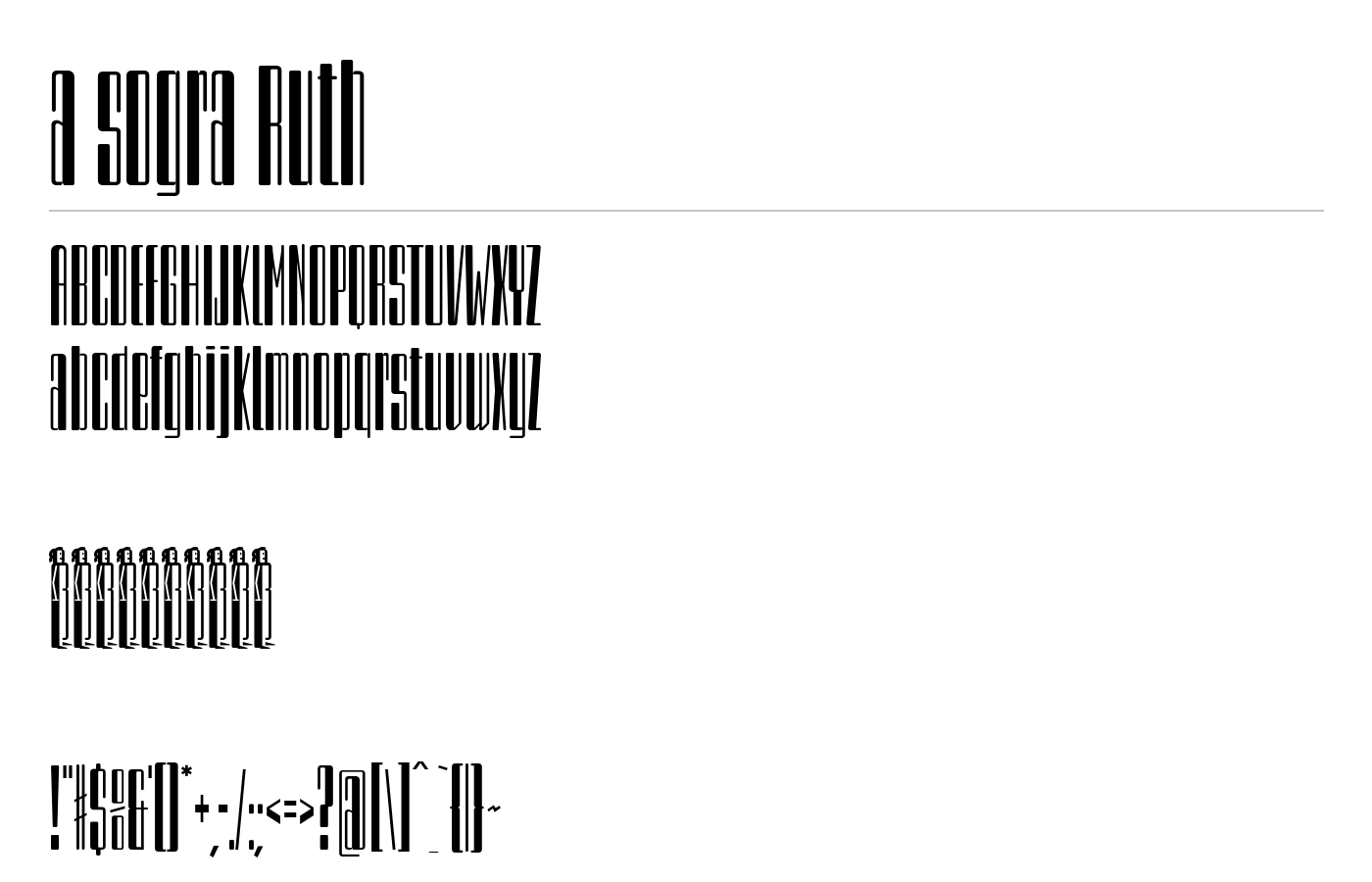
A Sogra Ruth is a tall, condensed sans serif font with a narrow, elongated structure that gives it a strikingly modern and elegant look. Its consistent stroke weight and geometric shapes make it ideal for bold headlines, logos, and display use where a sleek, contemporary style is desired. This font stands out with its minimalist letterforms, perfect for fashion branding, editorial layouts, or any design needing a refined yet impactful aesthetic.
a sogra Ruth Font
About a sogra Ruth Font
| Font family | a sogra Ruth Font |
| Designer | Fernando Haro |
| Font subfamily | Condensed |